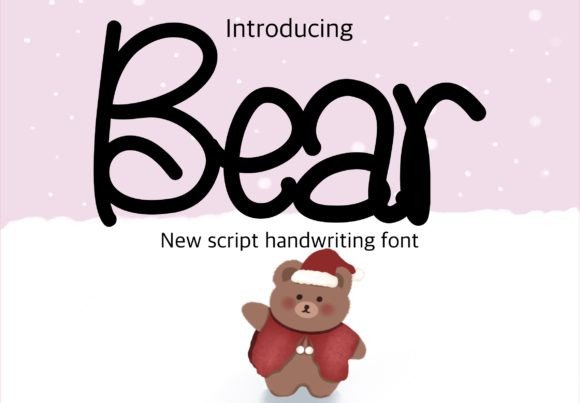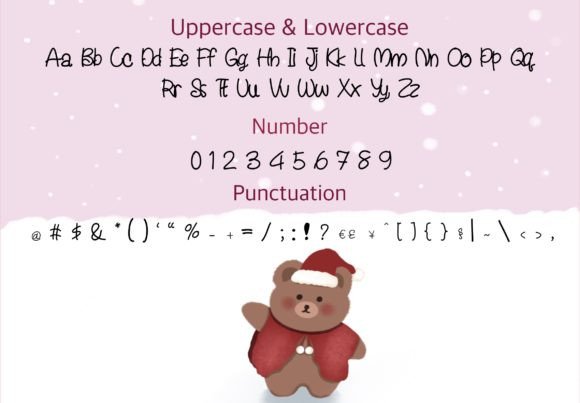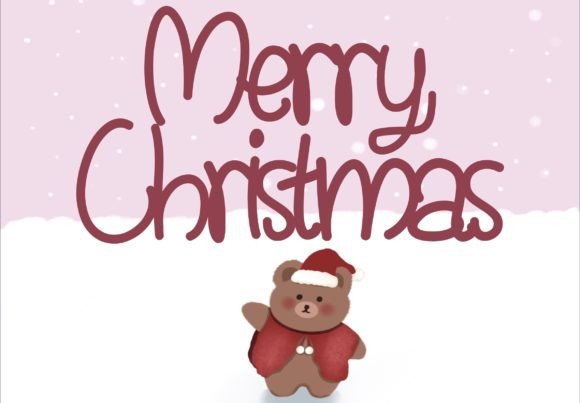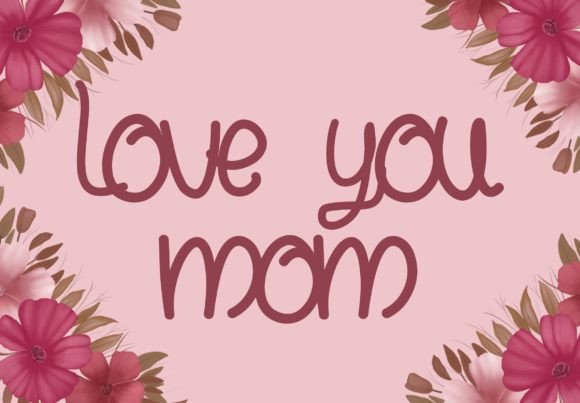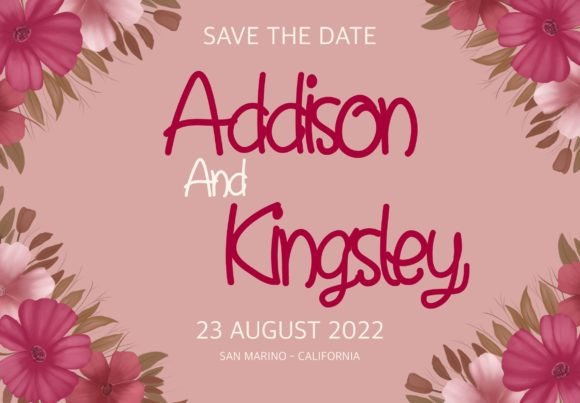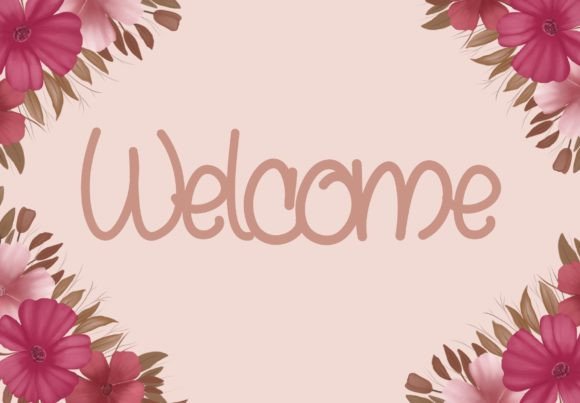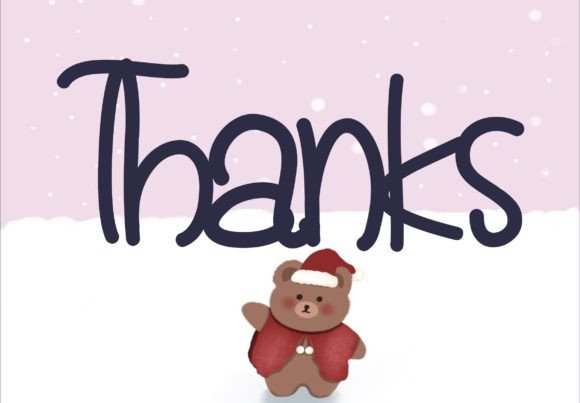
Bear Font
About Bear Font
The **Bear font** is a charming and cute handwritten typeface that adds a delightful touch to a variety of design projects. Whether you’re working on Christmas-themed projects, invitations, wedding invitations, wall displays, social media posts, logos, T-shirts, posters, product packaging, product designs, labels, stationery, or anything that requires a friendly and approachable aesthetic, this font is a perfect fit.
The loveliness and cuteness of the **Bear font** make it particularly well-suited for spreading warmth and friendliness in your designs. The handwritten style brings an element of authenticity and a personal touch, making it versatile for a range of applications.
In Christmas projects, the font becomes a festive and playful choice. Its cute and friendly appearance adds a joyful vibe, making it suitable for creating holiday-themed designs that resonate with the spirit of celebration.
For invitations and wedding-related projects, the font’s charm and cuteness contribute to a warm and welcoming atmosphere. It’s ideal for creating designs that convey a sense of intimacy and joy for special occasions.
In social media posts and T-shirts, the **Bear font** stands out as a typeface that adds a friendly touch to your messaging. Its handwritten look creates a casual and approachable feel, making it perfect for connecting with your audience.
In posters, product packaging, and labels, the font’s cuteness becomes a valuable asset. It can grab attention and create a memorable impression, making your designs stand out in a crowded visual landscape.
Whether used in stationery or for product designs, the **Bear font** brings a friendly and endearing quality that can enhance the overall appeal of your creations.
In summary, the **Bear font** is a lovely and cute handwritten font that adds a friendly touch to a variety of design projects. Whether you’re working on holiday-themed designs, invitations, or branding, let this font be the adorable and versatile choice that infuses your projects with warmth and charm.